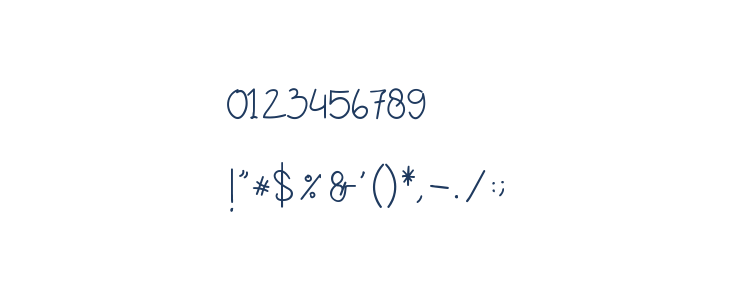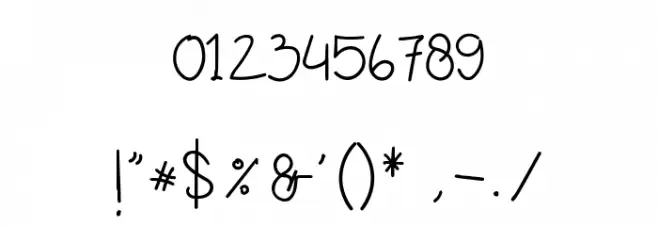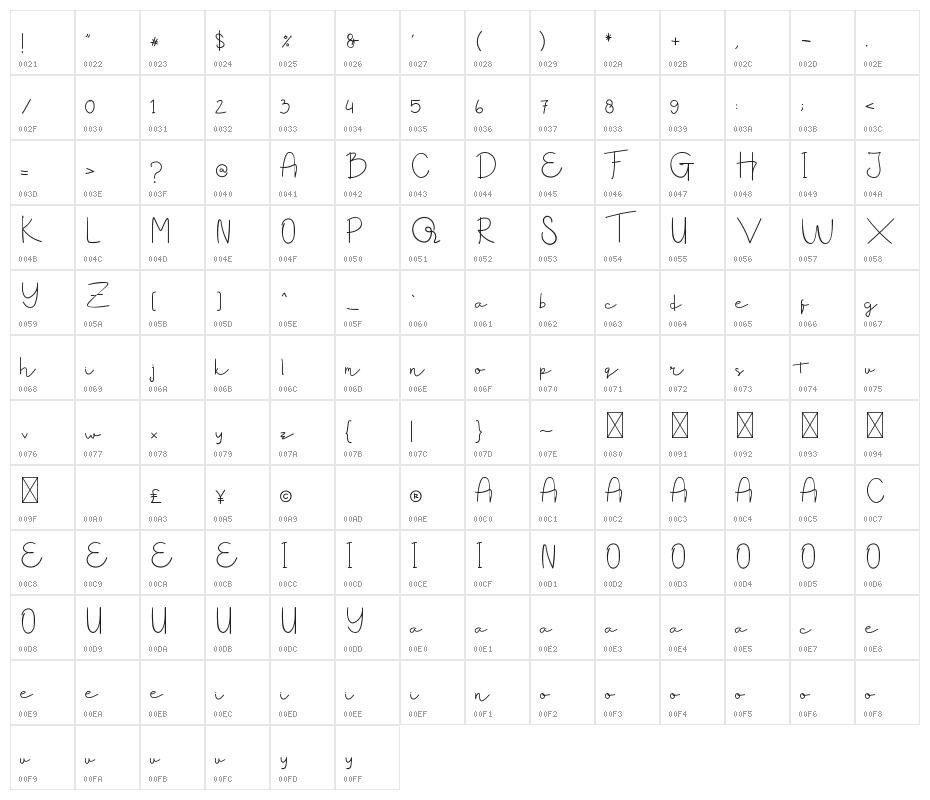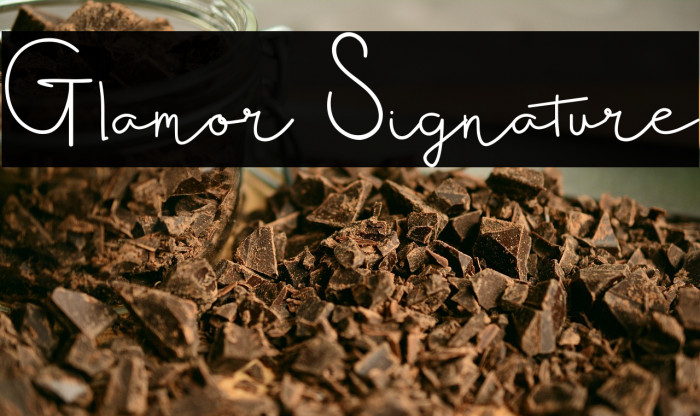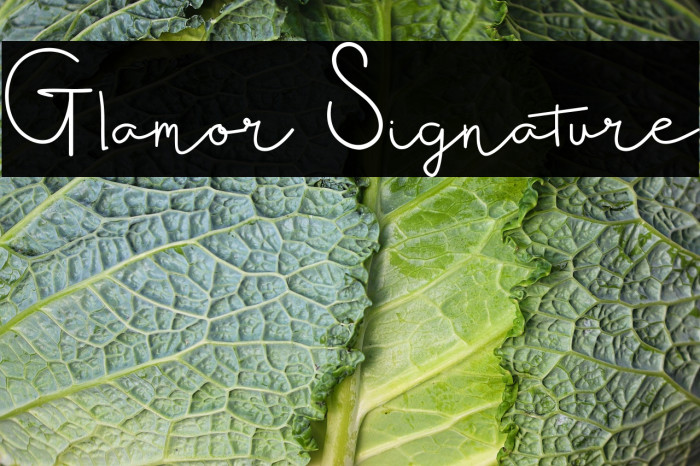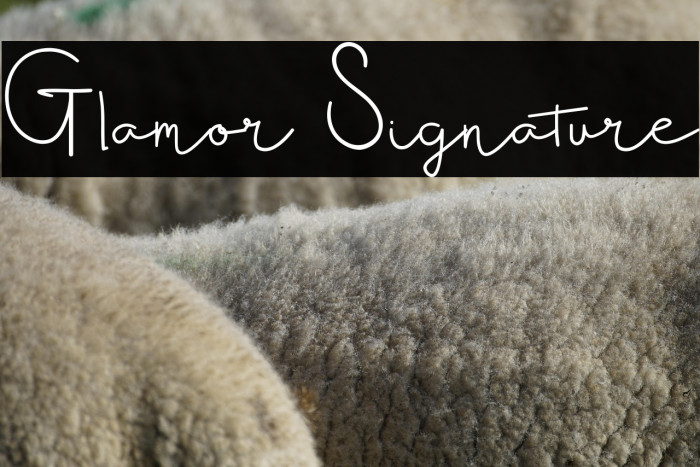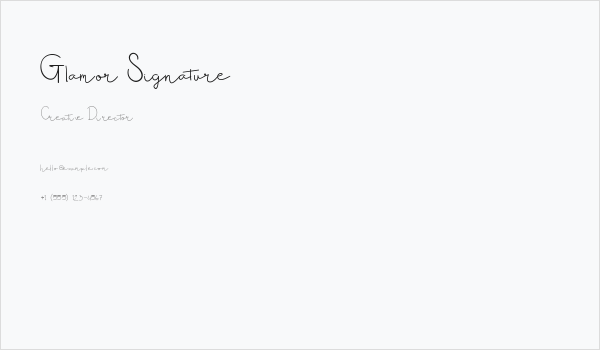
Glamor Signature Font
Glamor Signature Description
This font features a delicate and elegant handwritten style, characterized by its fluid and natural strokes. The uppercase letters are tall and slender, with a slight slant that adds a sense of movement and grace. The lowercase letters maintain a consistent flow, enhancing the script-like appearance. Numbers and special characters are crafted with the same attention to detail, ensuring a cohesive look across all elements. The overall aesthetic is sophisticated and stylish, making it suitable for projects that require a personal touch.
A delicate, elegant handwritten font with fluid strokes and a sophisticated style from Uncategorized fonts.
- Proposed Projects: Ideal for wedding invitations, personal branding, greeting cards, and elegant packaging designs.
- Use Case: Logos, Invitations, Personal Branding